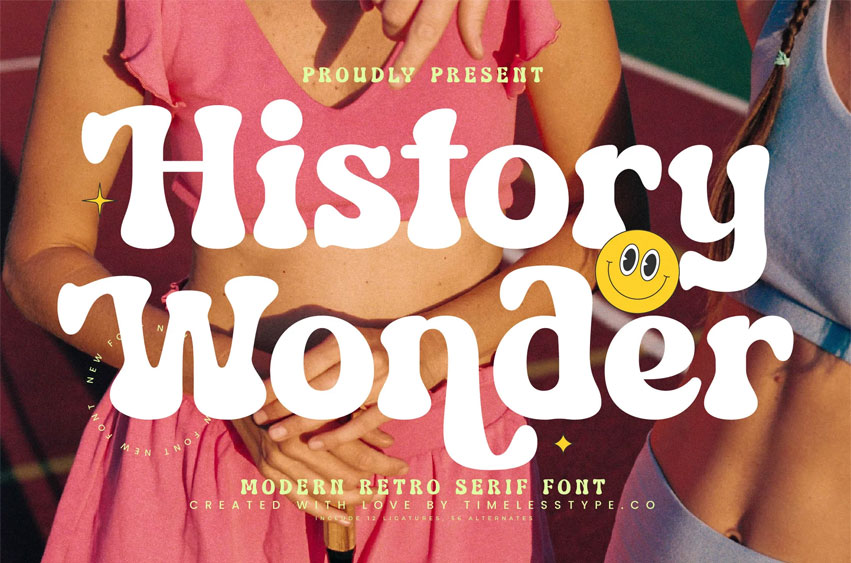
History Wonder Font
History Wonder Font is suitable to complement your digital and printed creative products. This font is perfect for posters, social media posts, branding, personal projects, etc.